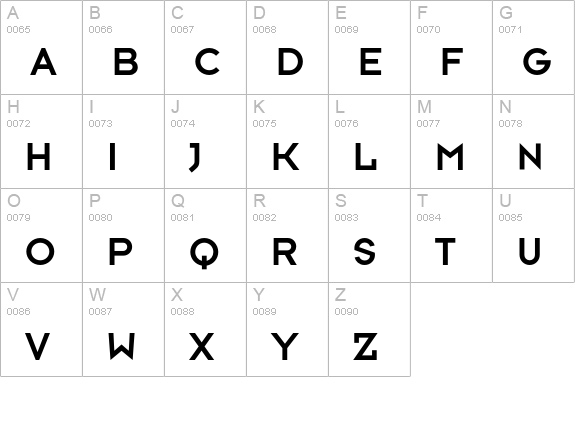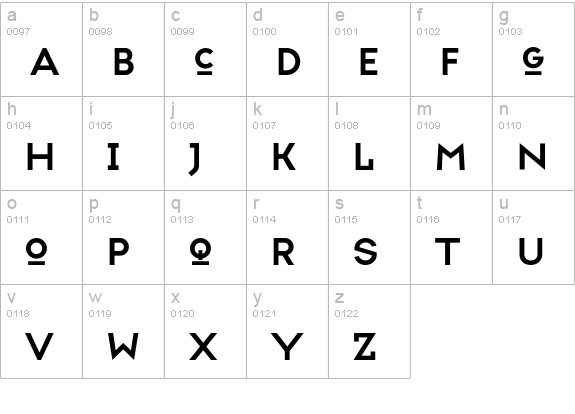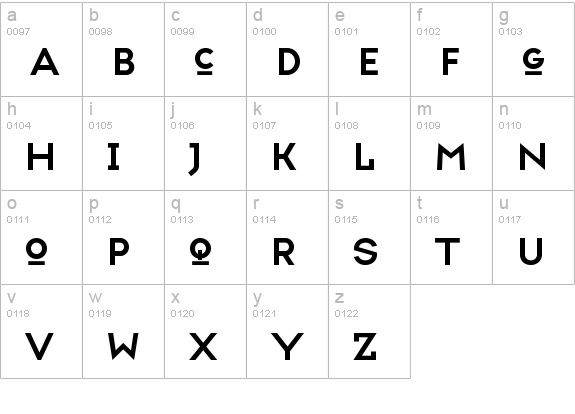
TypefaceSixPtFive Font Details
Introducing TypefaceSixPtFive font, the perfect blend of elegance and versatility. This font exudes a sense of sophistication and style, making it an ideal choice for both professional and creative projects. With its sleek and modern design, TypefaceSixPtFive font adds a touch of refinement to any text. Its clean lines and well-balanced proportions create a harmonious visual experience, enhancing readability and legibility across various platforms and mediums. But what truly sets TypefaceSixPtFive font apart is its accessibility. It is freely available to download at FontsMarket.com, allowing designers, artists, and enthusiasts alike to unleash their creativity without any financial constraints. Now you can elevate your designs without worrying about budget limitations. Whether you're designing a logo, creating a website, or crafting a captivating poster, TypefaceSixPtFive font is a versatile tool that will enhance your project effortlessly. Its extensive character set and multiple weights ensure that you have the flexibility to express your unique vision and bring your ideas to life. Moreover, TypefaceSixPtFive font is compatible with various design software, making it a seamless addition to your existing toolkit. Its compatibility with both Mac and Windows systems ensures that you can utilize this font across different platforms with ease. In conclusion, TypefaceSixPtFive font is a remarkable free font that combines elegance, versatility, and accessibility. Its sleek design, impeccable readability, and availability for free download at FontsMarket.com make it an invaluable asset for any designer or creative individual. Unleash your creativity and elevate your designs with TypefaceSixPtFive font, the font that embodies both style and freedom.